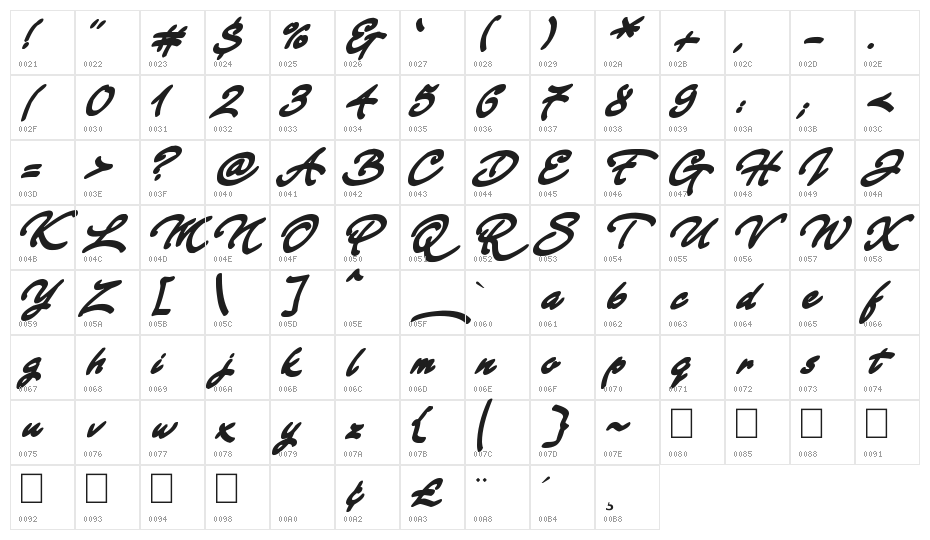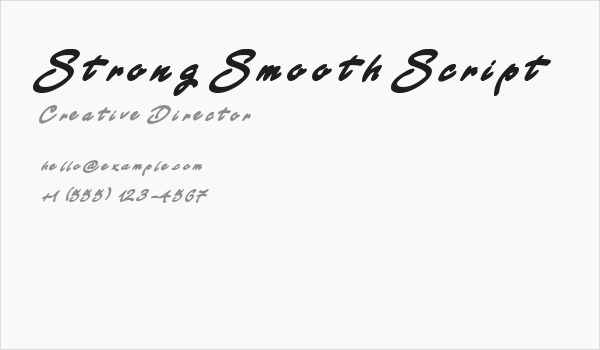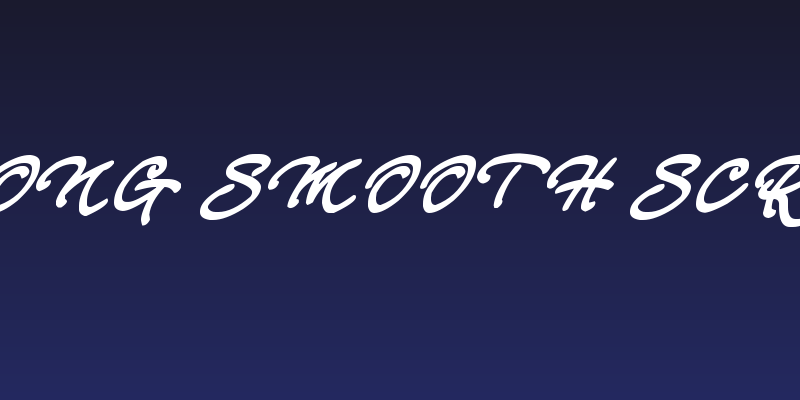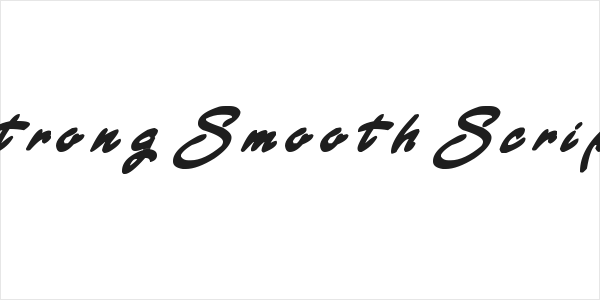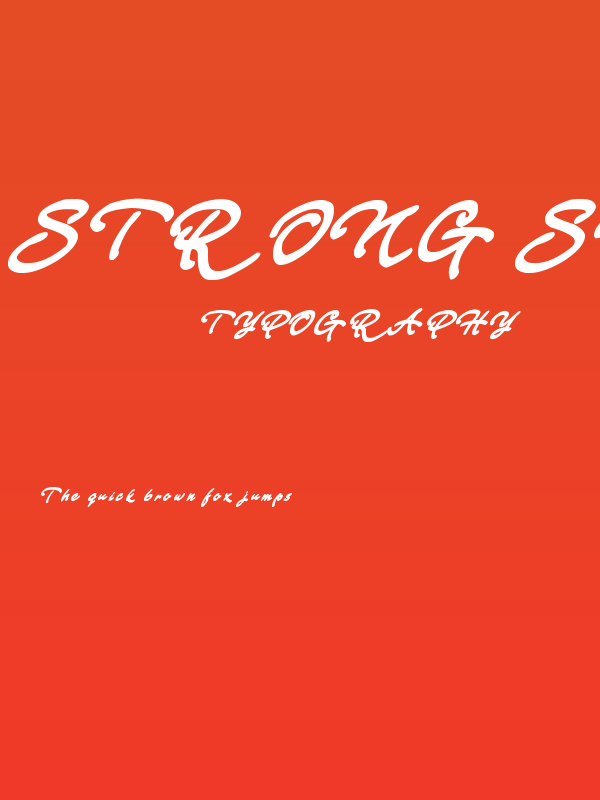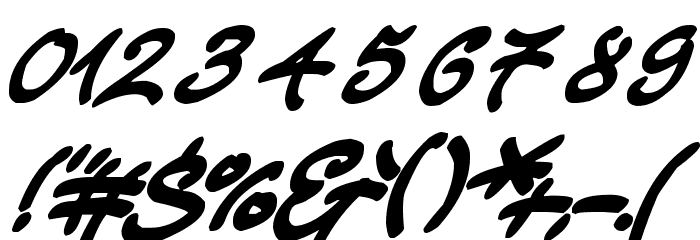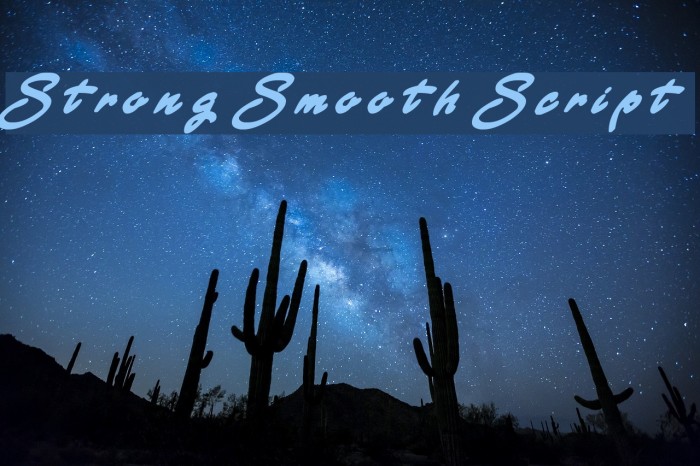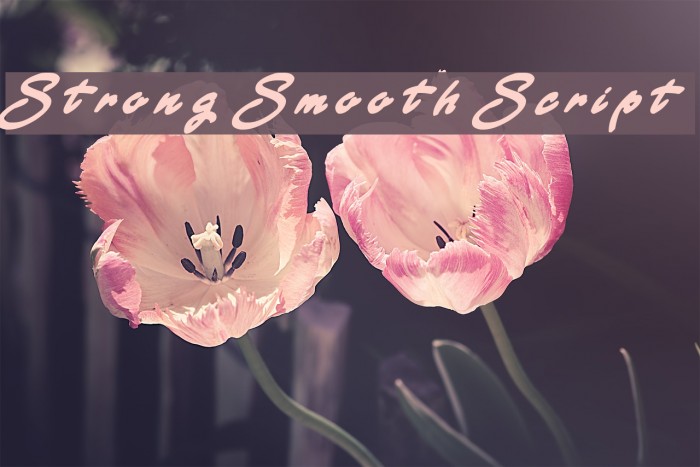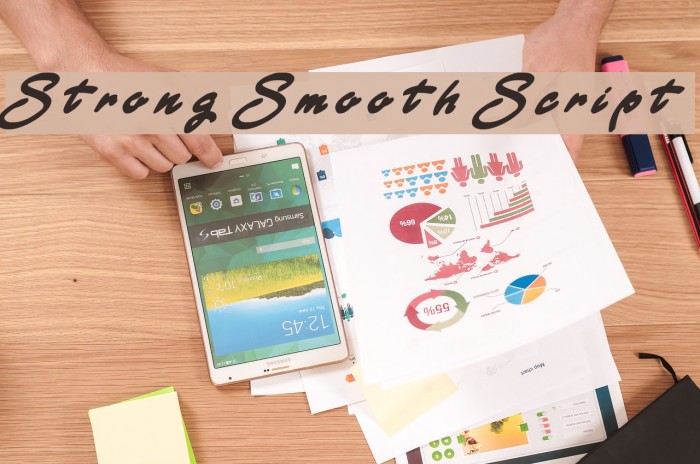
Strong Smooth Script Font
Strong Smooth Script Description
This script font exudes a bold and dynamic presence with its smooth, flowing curves and strong character strokes. The uppercase letters are elegantly crafted with a sense of movement, while the lowercase letters maintain a consistent fluidity, enhancing the overall aesthetic. The numerals are equally bold, ensuring readability while maintaining the script's artistic flair. Special characters are designed with the same attention to detail, making them seamlessly integrate with the rest of the font. This font's strong, smooth style makes it ideal for projects that require a touch of elegance and boldness.